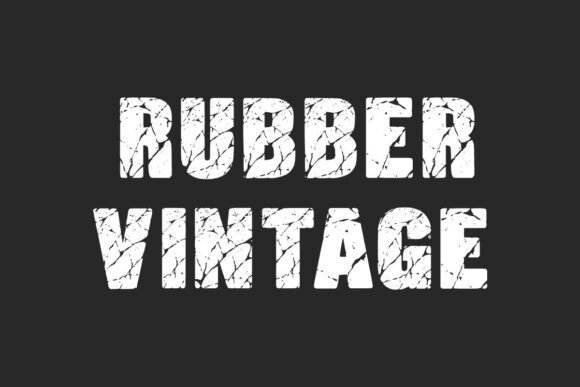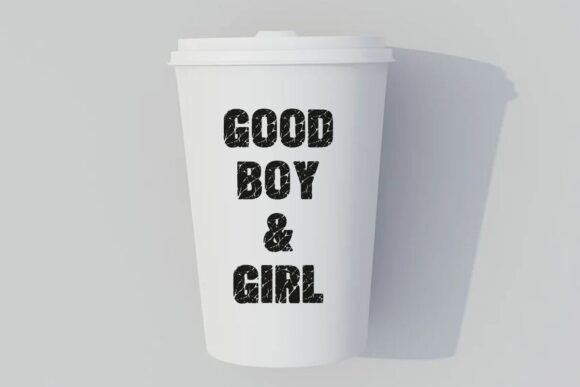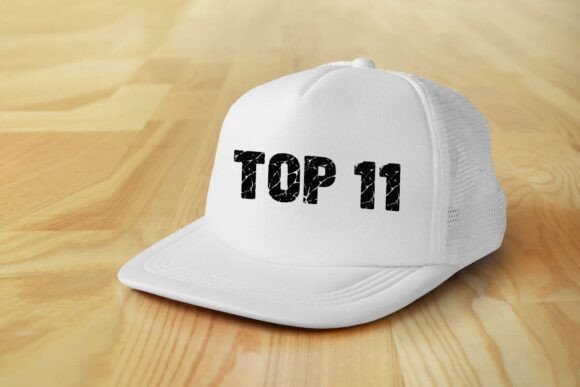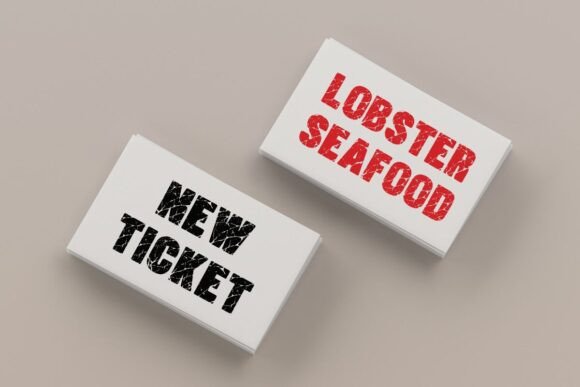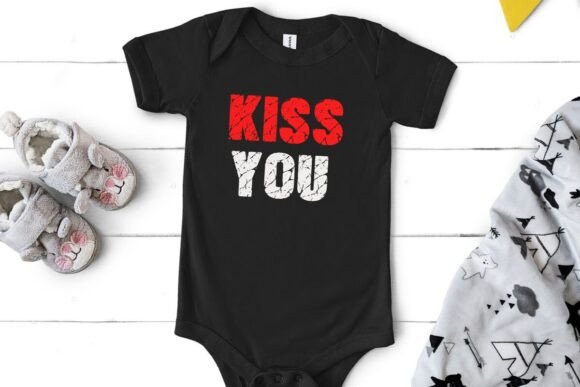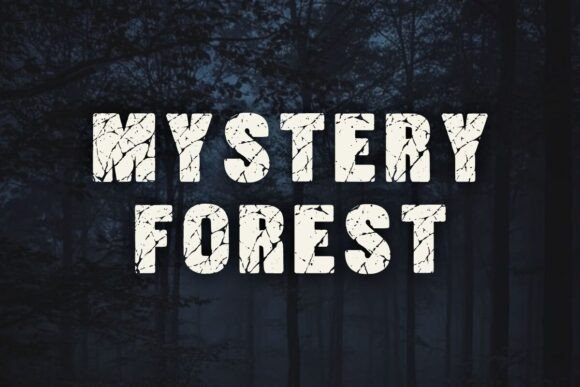
Unleash Your Creativity with Destroy Scratch Font
Are you tired of using the same old fonts for your creative projects? Look no further! Destroy Scratch Font is an incredibly unique display font that is sure to take your designs to the next level. Masterfully designed to become a true favorite, this font has the potential to bring each of your creative ideas to the highest level.
What Makes Destroy Scratch Font So Special?
Destroy Scratch Font is not your average font. Its unique design and distressed texture give it a one-of-a-kind look that is sure to grab attention. The font’s rugged and edgy feel makes it perfect for designs that require a bold and daring statement. Whether you’re working on a logo, poster, or social media graphic, Destroy Scratch Font is sure to make your design stand out.
Features of Destroy Scratch Font
- Unique Display Font: Destroy Scratch Font is a display font that is designed to make a statement. Its bold and edgy design makes it perfect for headlines, titles, and other display text.
- Distressed Texture: The font’s distressed texture gives it a rugged and worn look that adds to its edgy feel.
- High-Quality Design: The font is masterfully designed to ensure that it looks great in any design.
- Versatile: Destroy Scratch Font can be used for a variety of design projects, from logos and posters to social media graphics and more.
Who Can Benefit from Using Destroy Scratch Font?
Destroy Scratch Font is perfect for designers and crafters who are looking to add a unique touch to their designs. Whether you’re a professional designer or a DIY crafter, this font is sure to inspire your creativity and take your designs to the next level.
Designers
As a designer, you know how important it is to have a wide range of fonts at your disposal. Destroy Scratch Font is a great addition to any designer’s font library. Its unique design and distressed texture make it perfect for a variety of design projects, from branding and advertising to packaging and more.
Crafters
If you’re a crafter, you know how important it is to have a personal touch in your designs. Destroy Scratch Font is perfect for crafters who want to add a unique and edgy touch to their projects. Whether you’re working on a scrapbooking project or creating handmade cards, this font is sure to add a touch of personality to your designs.
Tips for Using Destroy Scratch Font
- Use it as a Headline Font: Destroy Scratch Font is perfect for headlines and titles. Use it to grab attention and add a bold statement to your design.
- Experiment with Different Colors: The font’s distressed texture looks great in a variety of colors. Experiment with different colors to find the one that works best for your design.
- Pair it with Other Fonts: Destroy Scratch Font can be paired with other fonts to create a unique and interesting design. Try pairing it with a clean and simple font to create contrast.
Destroy Scratch Font is an incredibly unique display font that is sure to take your designs to the next level. Its bold and edgy design, distressed texture, and high-quality design make it perfect for a variety of design projects. Whether you’re a designer or a crafter, this font is sure to inspire your creativity and add a unique touch to your designs.